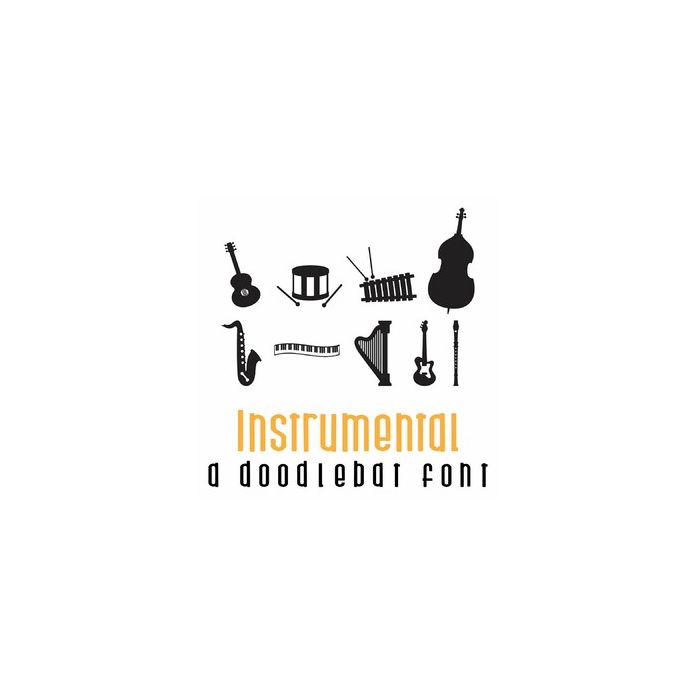
Instrumental Doodlebat Font
This fun doodlebat font features 26 music-inspired silhouettes. Perfect for cards, crafts, gifts, decor, scrapbook pages, planner stickers and more!